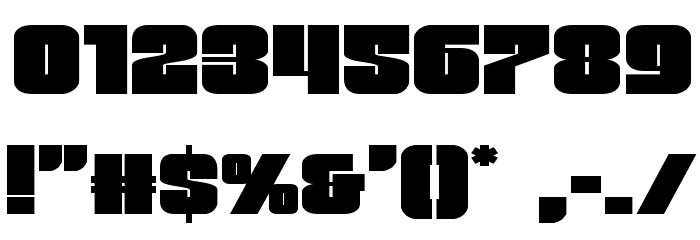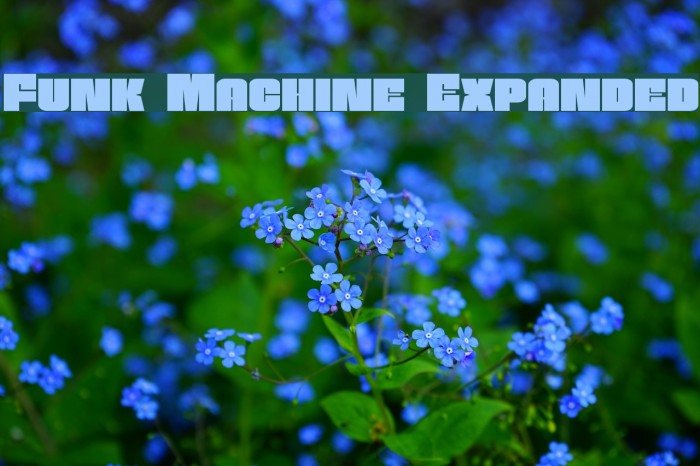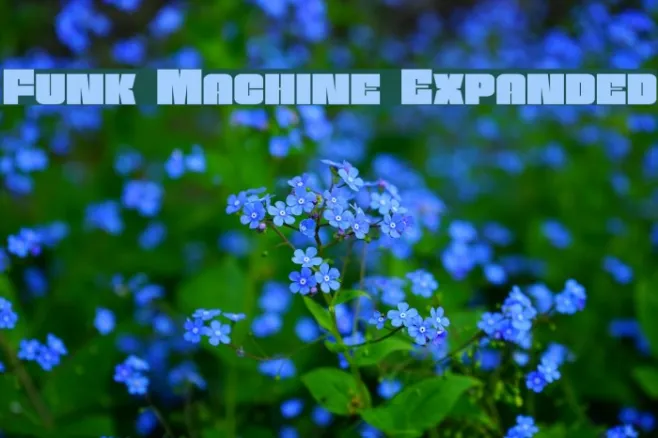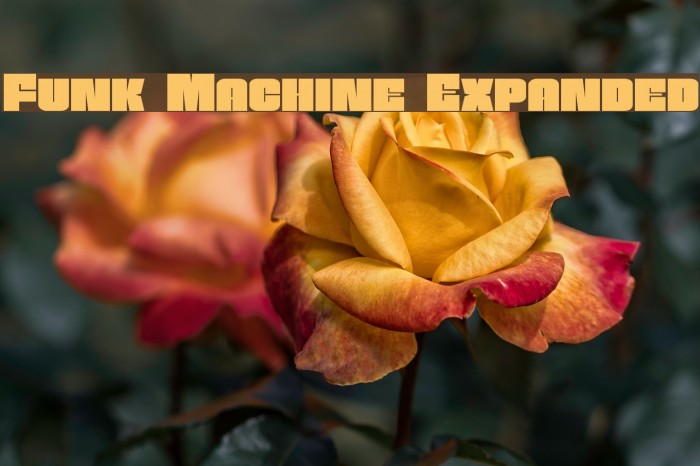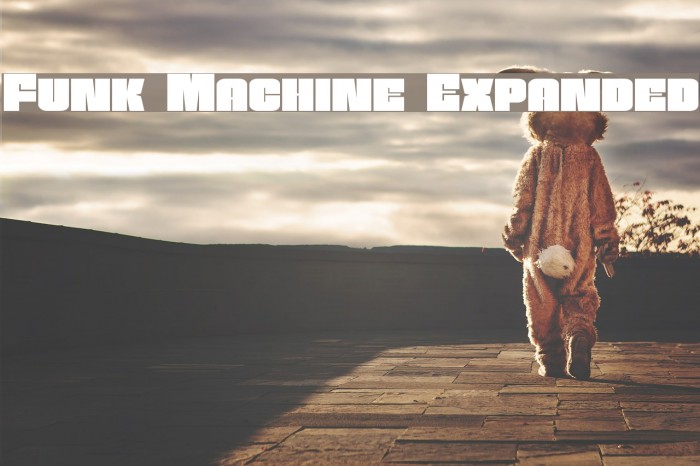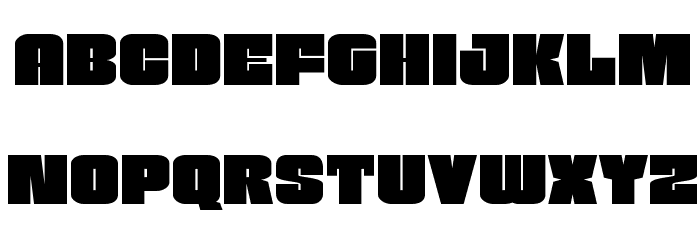
Funk Machine Expanded Font
Funk Machine Expanded Description
This font features a bold and expansive design, characterized by its thick, block-like letters that convey a strong and impactful presence. The uppercase letters are uniformly wide, creating a sense of stability and strength. The font's geometric shapes and sharp edges give it a modern and industrial feel, making it suitable for attention-grabbing headlines and titles. The numbers and special characters maintain the same boldness, ensuring consistency across all elements. The overall style is assertive and dynamic, perfect for projects that require a bold statement.
| Proposed Projects | Ideal for posters, logos, branding, and any design requiring a strong visual impact. |